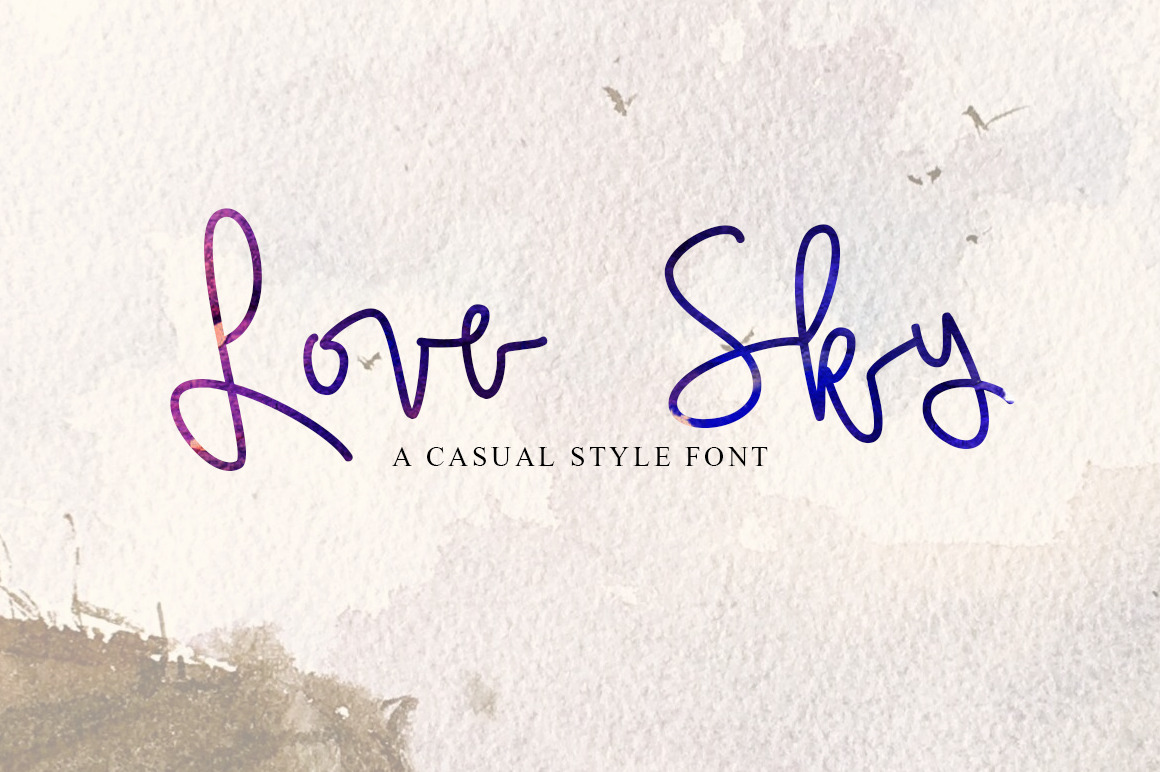
Love Sky font
Love Sky is a set of handwritten style font, It is smooth, free, smart, It include dozens of ligature glyph, the combination of a variety of changes.